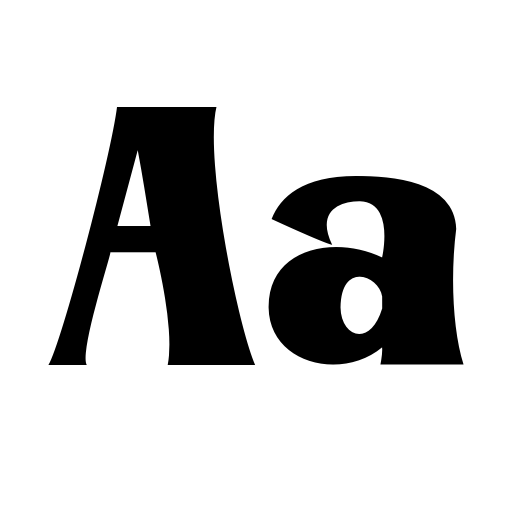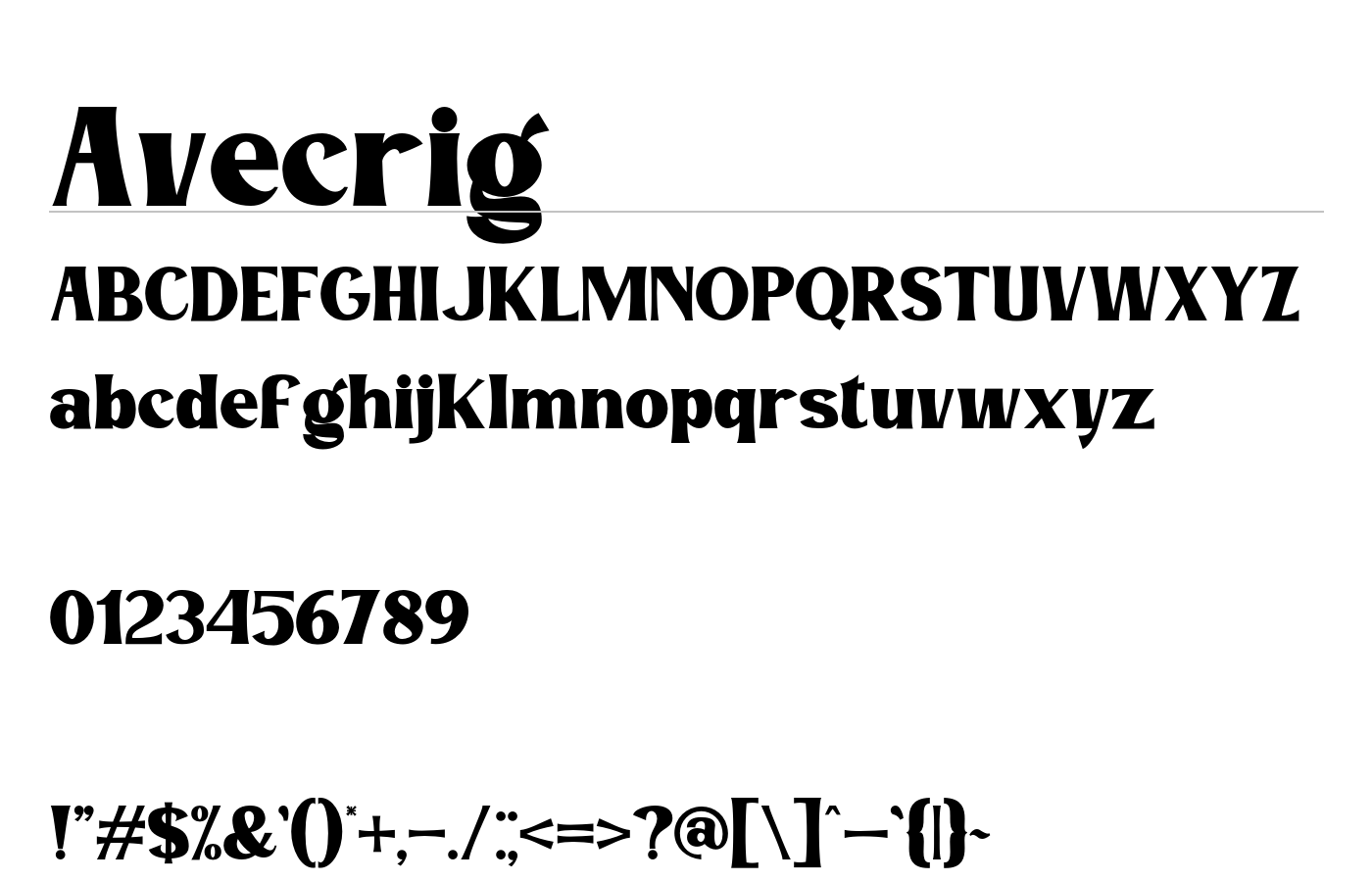
Avecrig is a bold serif font with a strong character, featuring thick strokes, sharp angles, and a slightly condensed width. Its high contrast between thick and thin lines, along with the unique details like the curved terminals and distinct shapes of letters such as g and r, give it an assertive yet elegant feel. This font works well for headlines, logos, and branding that aim to convey confidence and sophistication with a touch of classic style.
Avecrig Font
About Avecrig Font